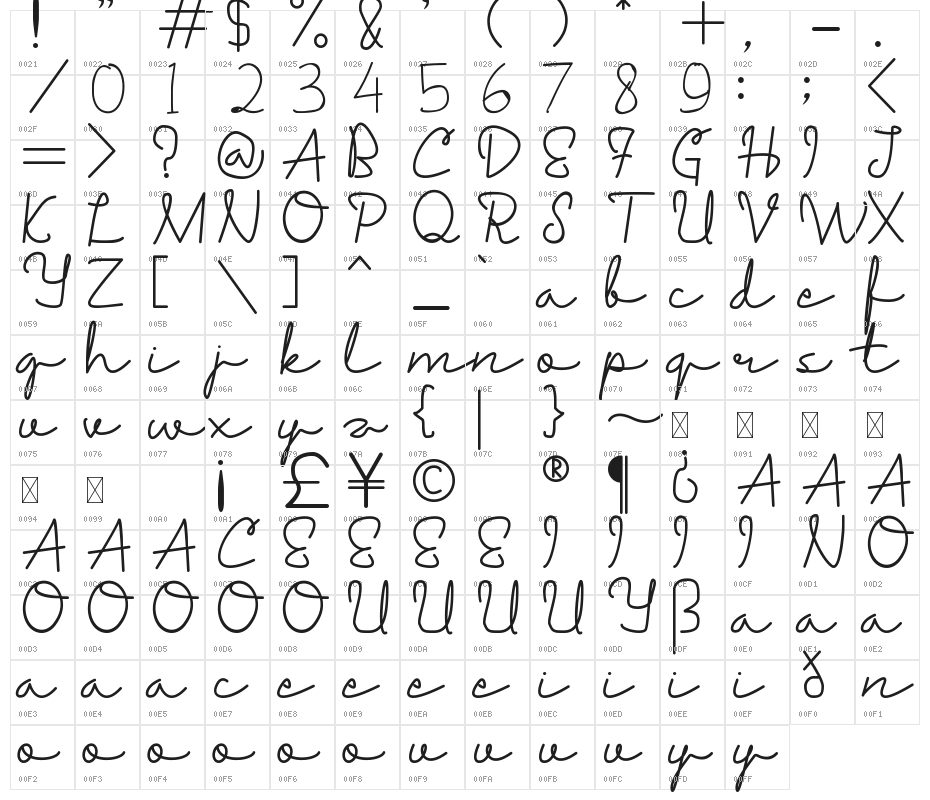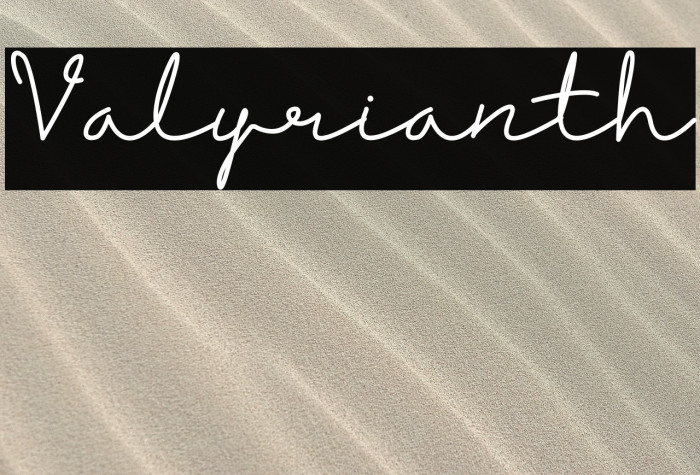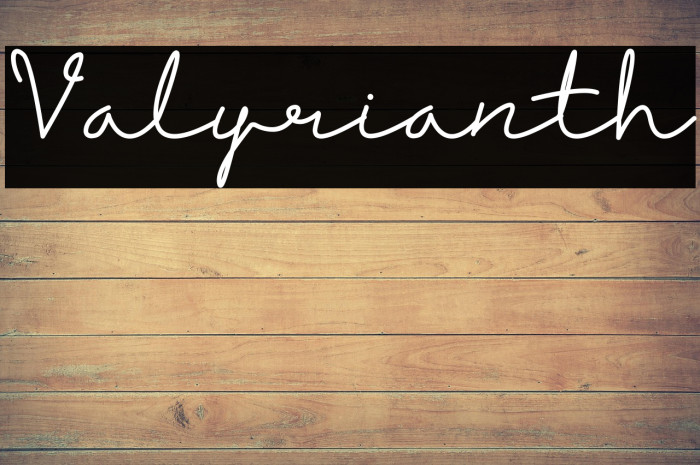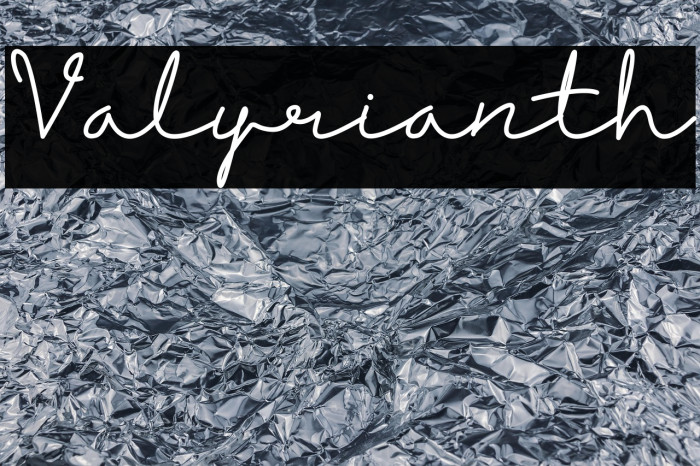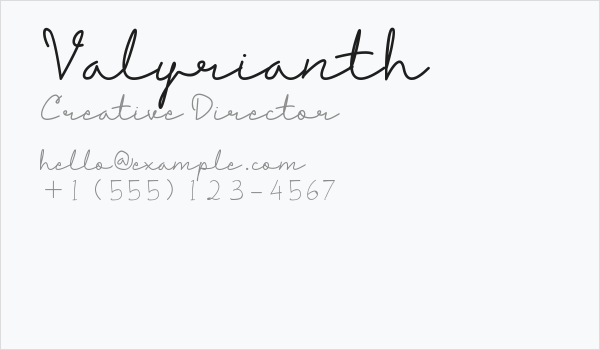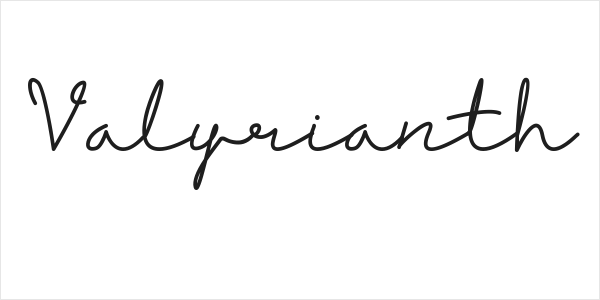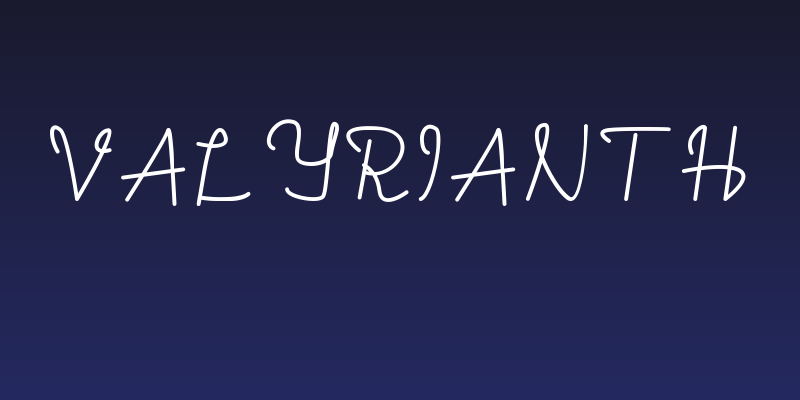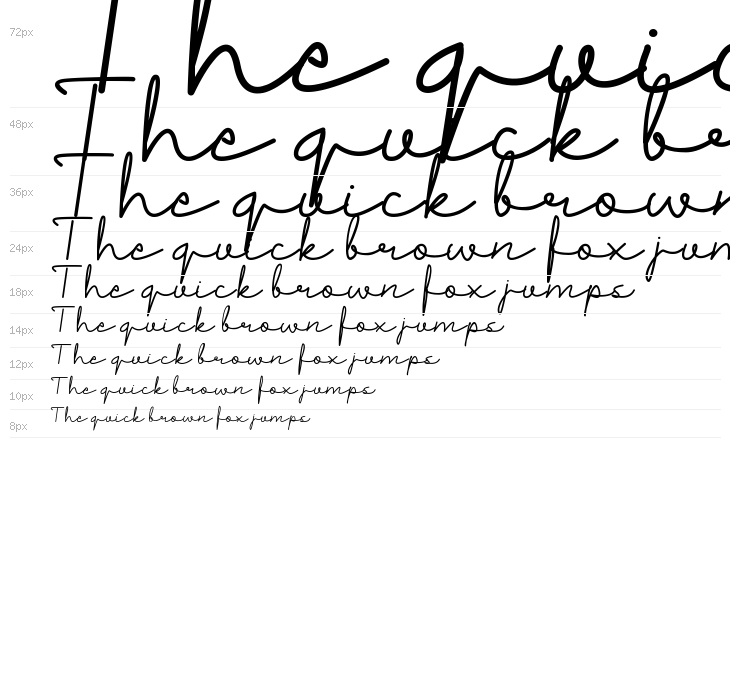
Valyrianth Font
Valyrianth Description
This font features a flowing, cursive style that mimics elegant handwriting. The uppercase letters are distinct with a slight slant, while the lowercase letters seamlessly connect, enhancing its script-like appearance. The numerals maintain the same fluidity, offering a cohesive look throughout. Special characters are crafted with the same attention to detail, ensuring they blend well with the overall aesthetic. The font's strokes are consistent in thickness, providing a balanced and harmonious feel. It exudes a sense of sophistication and charm, making it suitable for projects that require a personal touch.
| Overall Style | Elegant, Handwritten |
| Use Case | Logos, Invitations, Personal Branding |
| Proposed Projects | Ideal for wedding invitations, greeting cards, personal branding, and elegant stationery. |